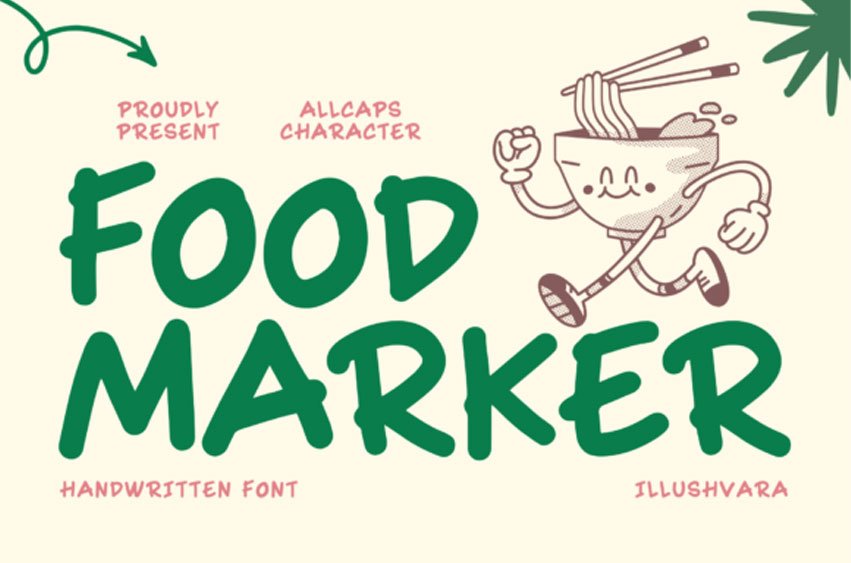
Food Marker Font Whisk up a feast of flavor with Food Marker, a sprightly handwritten font. Influenced by the world of culinary arts, this charming typeface takes the casual charm of cafés, the loving handiwork of bakeries, and the homey feel of family dinners, serving it in neat, all-caps characters.
Displaying the organic feel of a marker, it infuses menus, packaging, restaurant logos, coffee shop insignias, posters, or social media with its inviting warmth and unique personality.
Imbued with a handcrafted aura, Food Marker lends a deliciously refreshing and welcoming touch to your designs, cooking up a brand image that’s equal parts cheerful, tasty, and memorable.